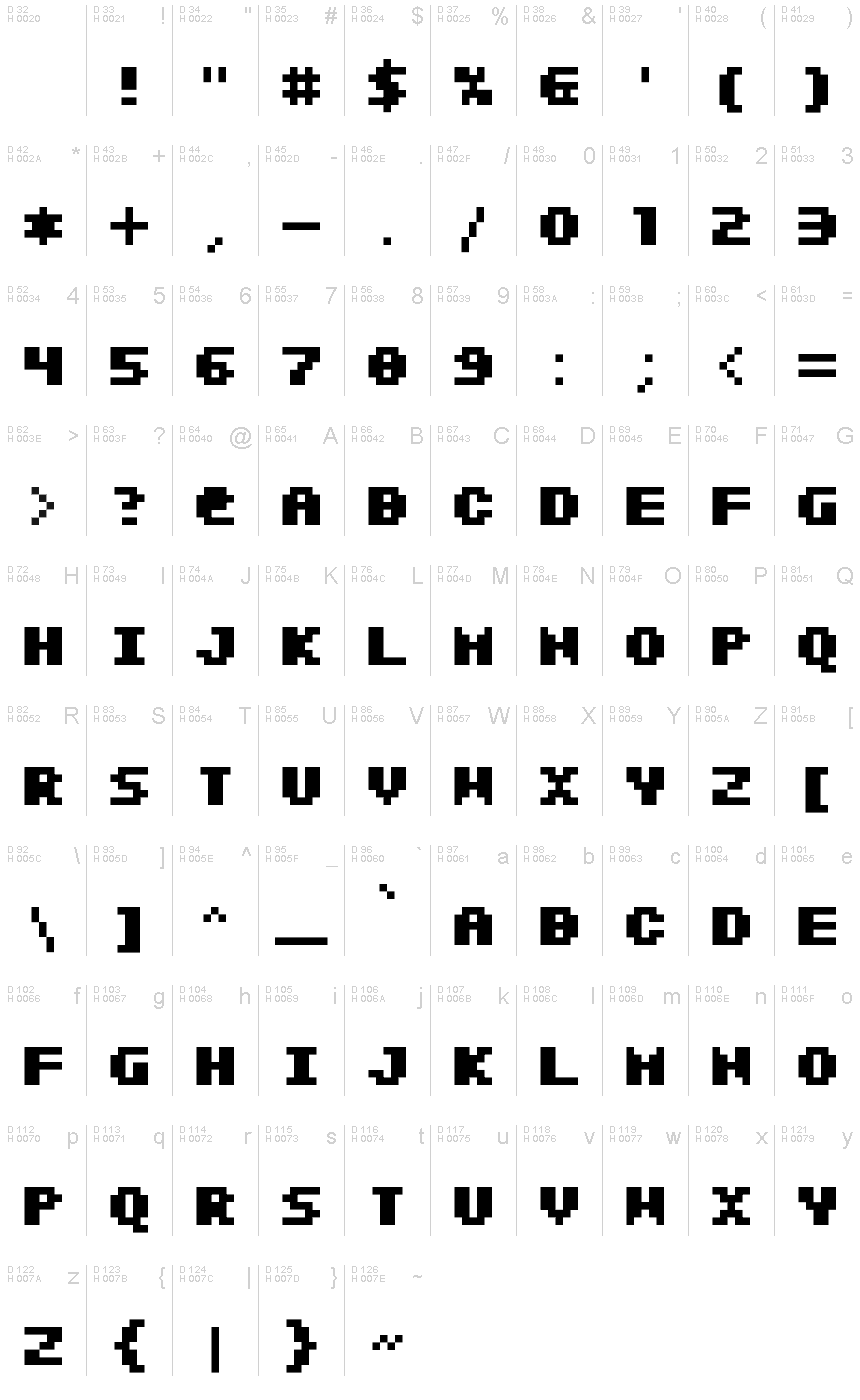
SF Intermosaic Bold
SF Intermosaic Bold emerges from the SF Intermosaic family as a distinctive bitmap font designed by ShyFonts Type Foundry. Its pixelated style harkens back to the early days of digital typography, offering a nostalgic yet modern aesthetic that commands attention. The bold weight and expanded width of this font ensure that your text makes a strong visual impact, making it an excellent choice for titles and headings where clarity and presence are paramount.
With its crisp edges and blocky form, SF Intermosaic Bold is not just a typographical choice but a design statement. It excels in projects that require a retro vibe or digital theme, seamlessly blending with video game graphics, tech event materials, or any creative work looking to channel an 8-bit era charm while maintaining readability.
SF Intermosaic Bold's assertive appearance is matched by its versatility; whether you're crafting eye-catching web content, standout print media, or innovative logos, this font offers both the character and functionality needed to elevate your designs.